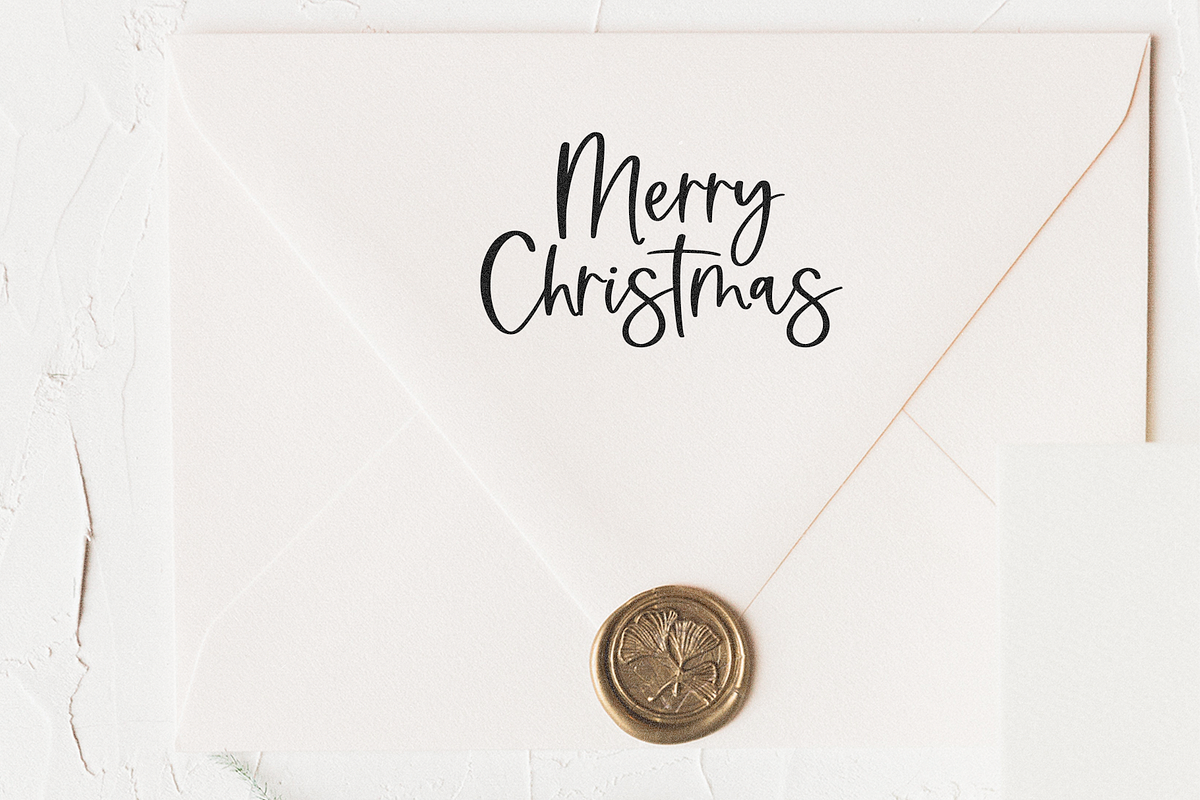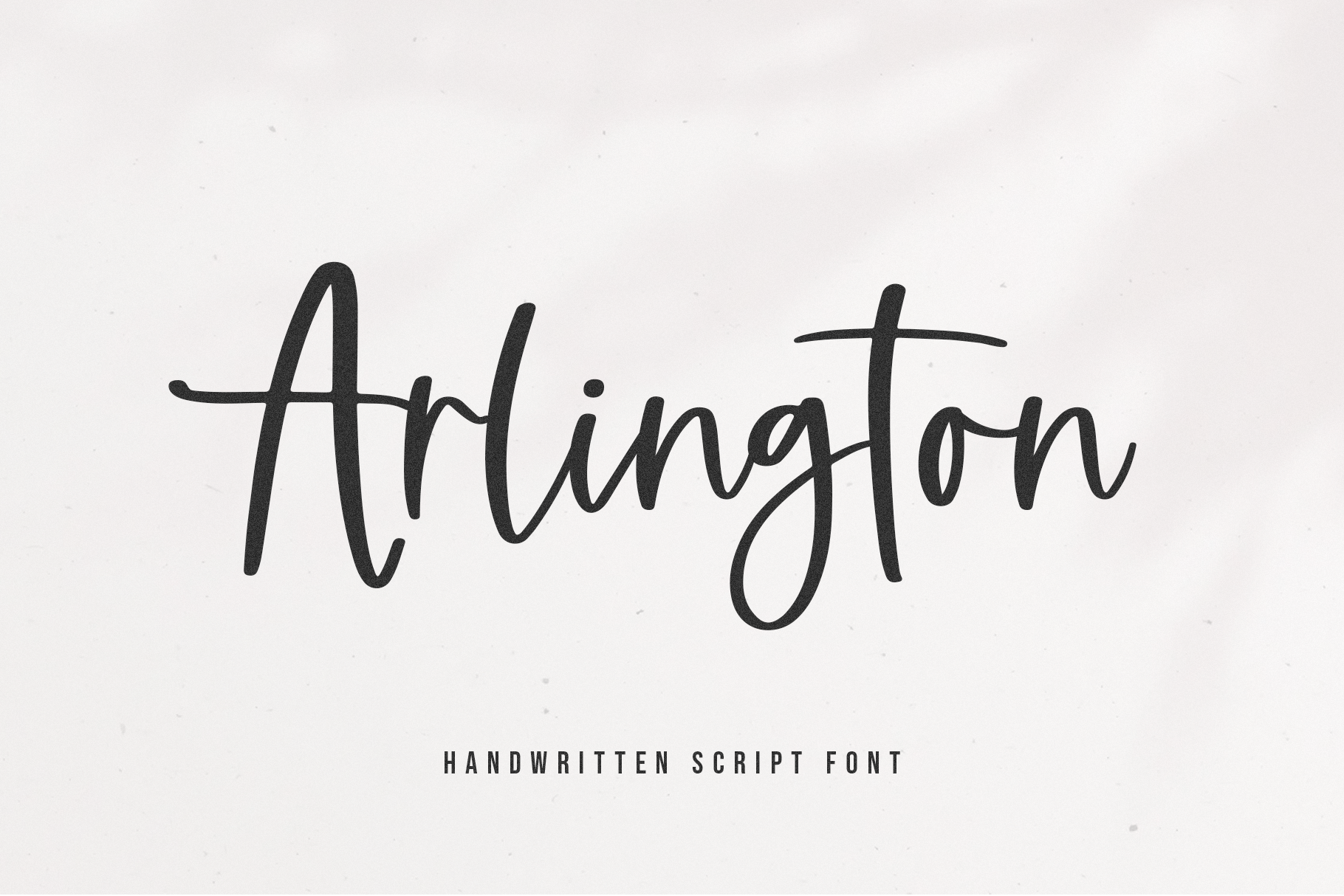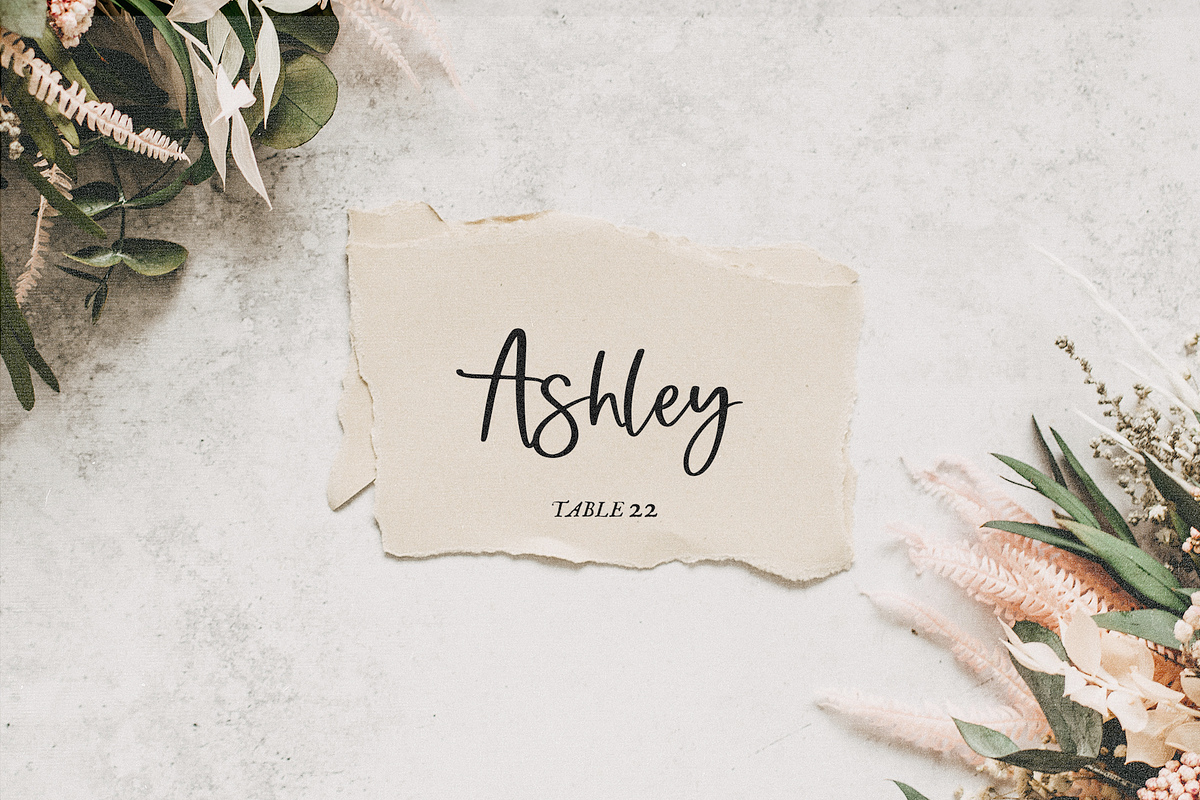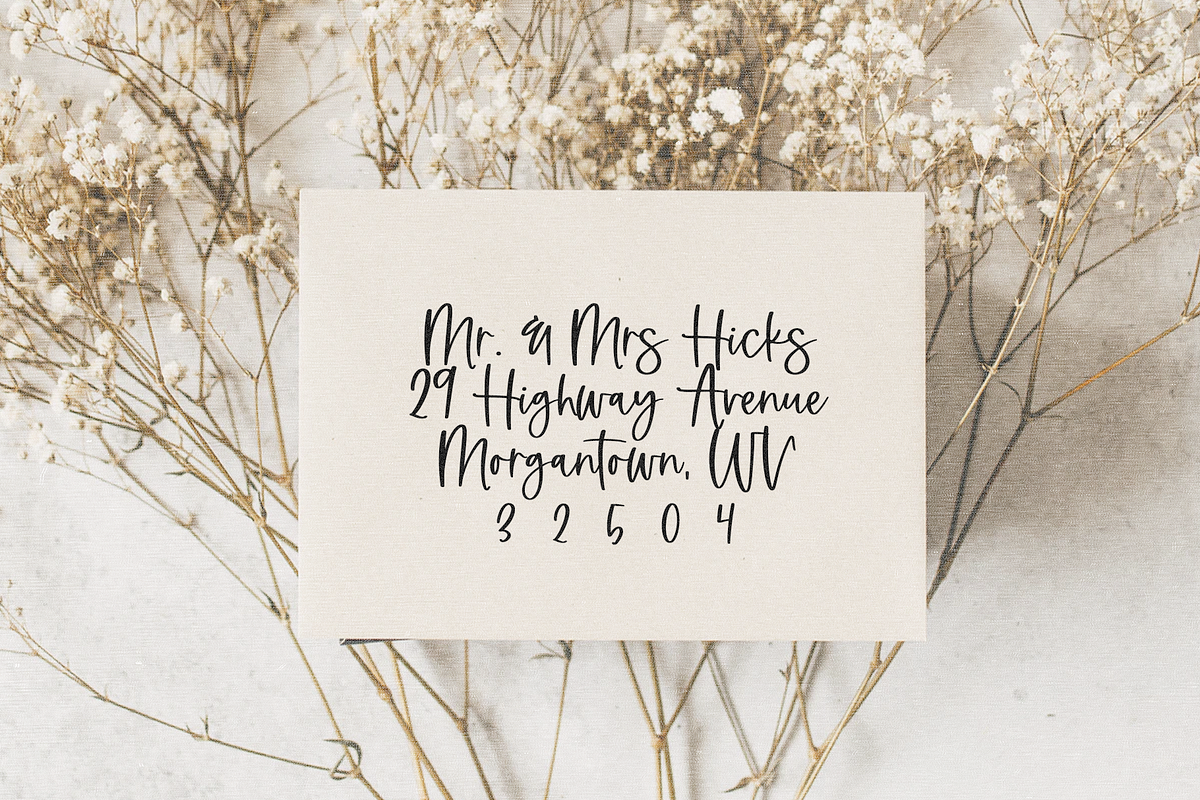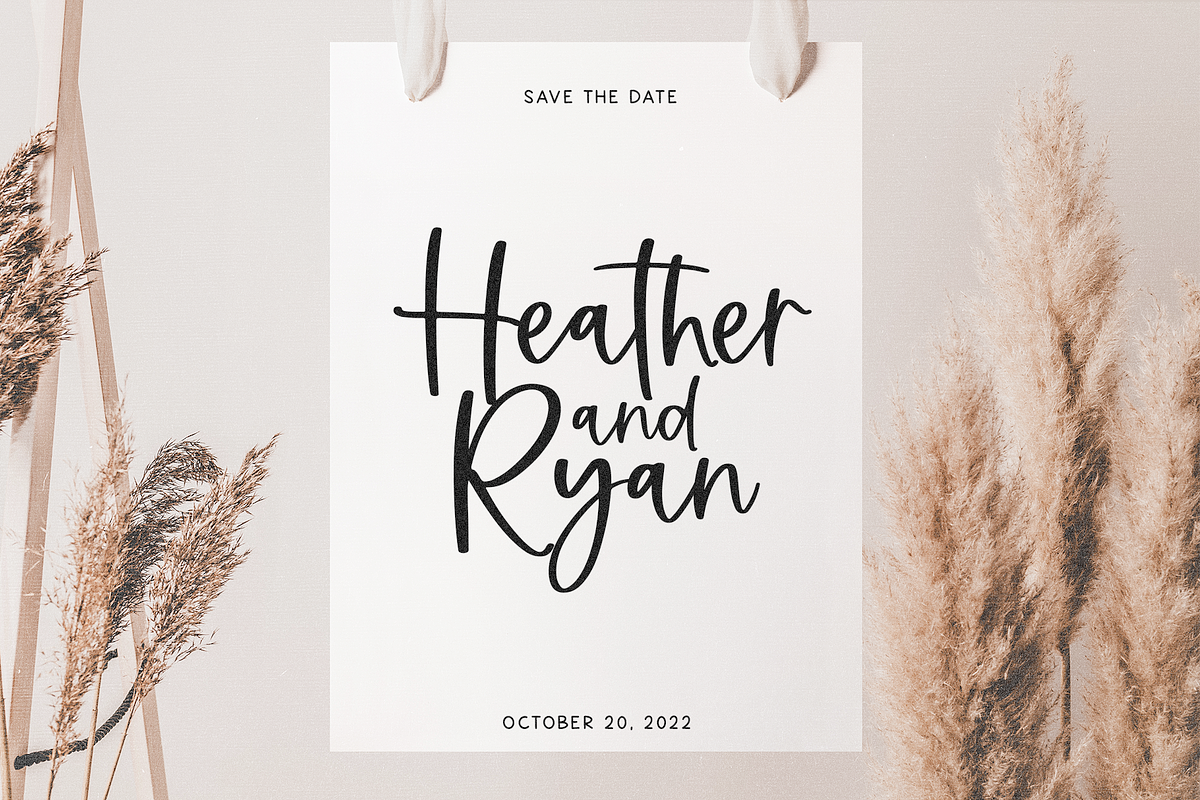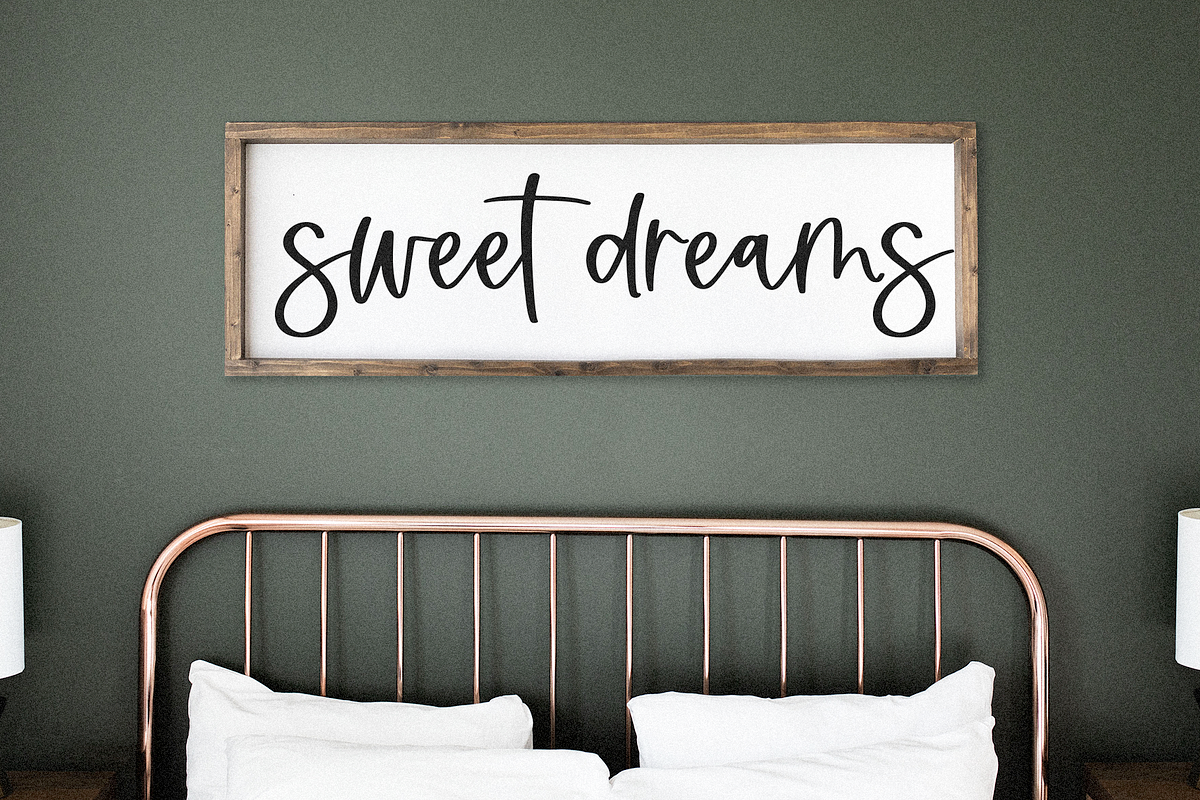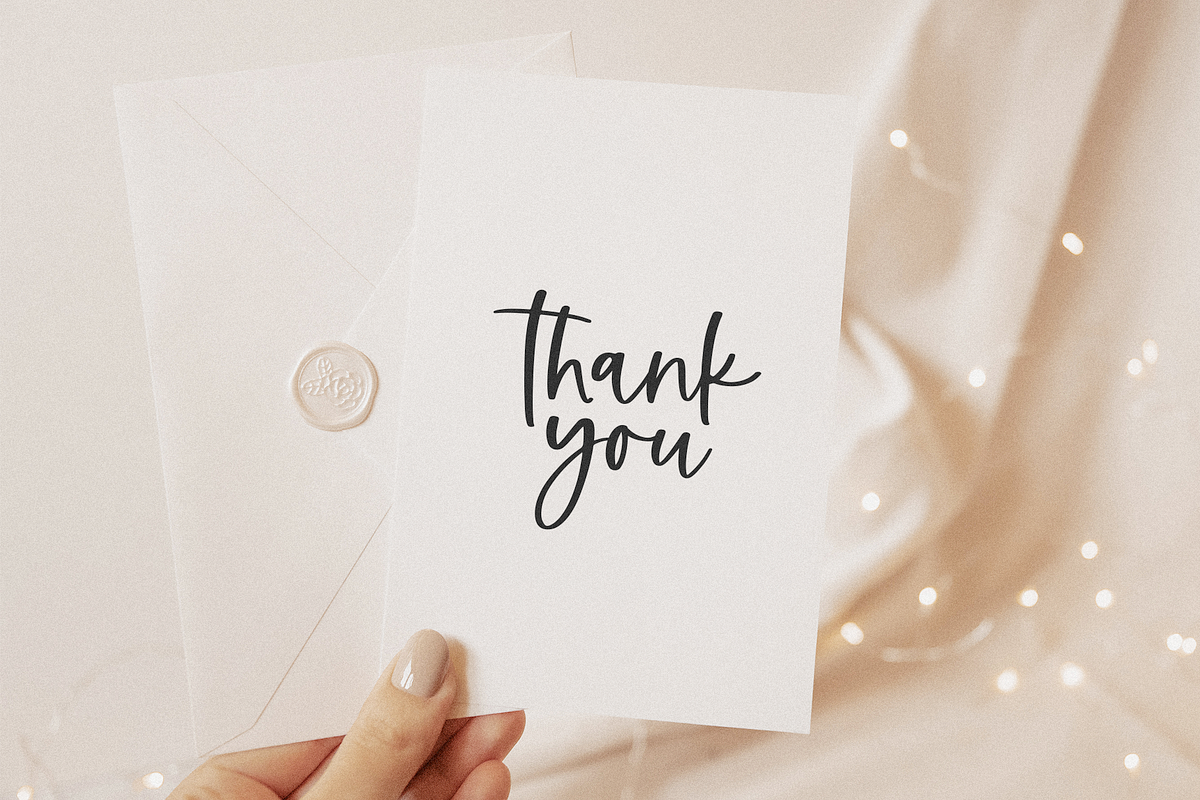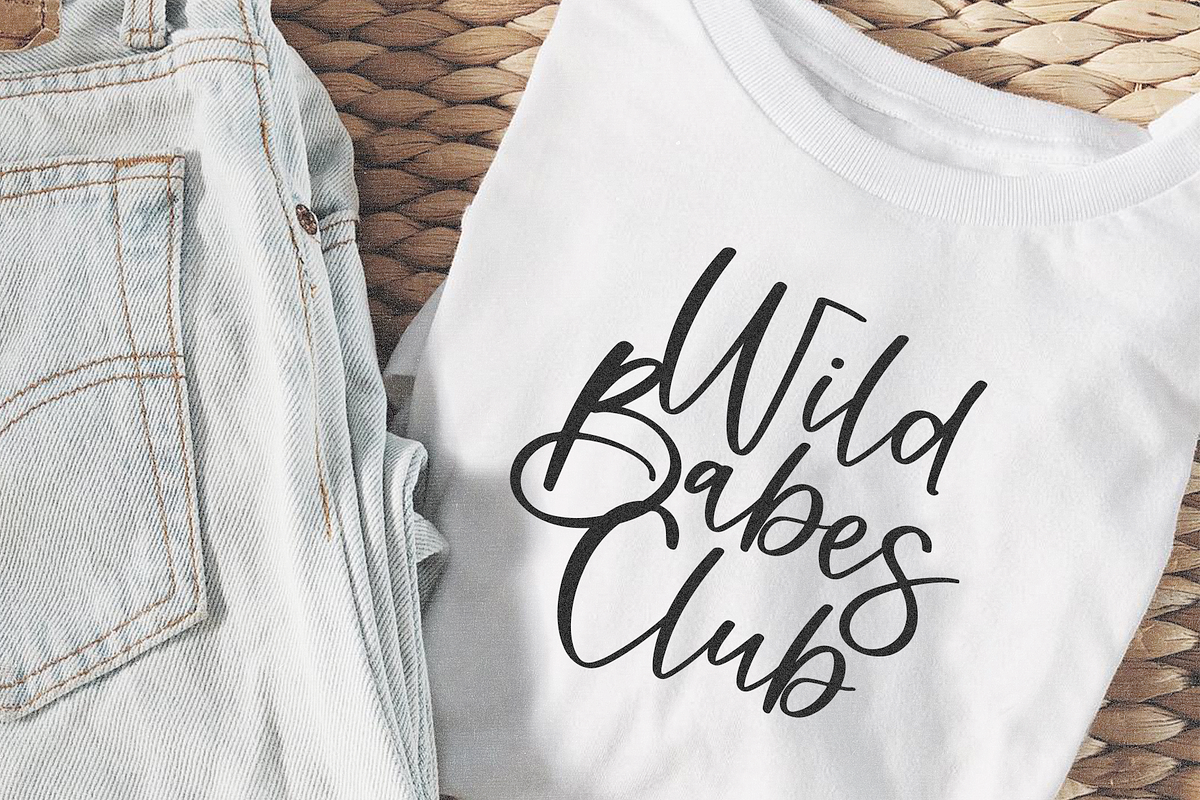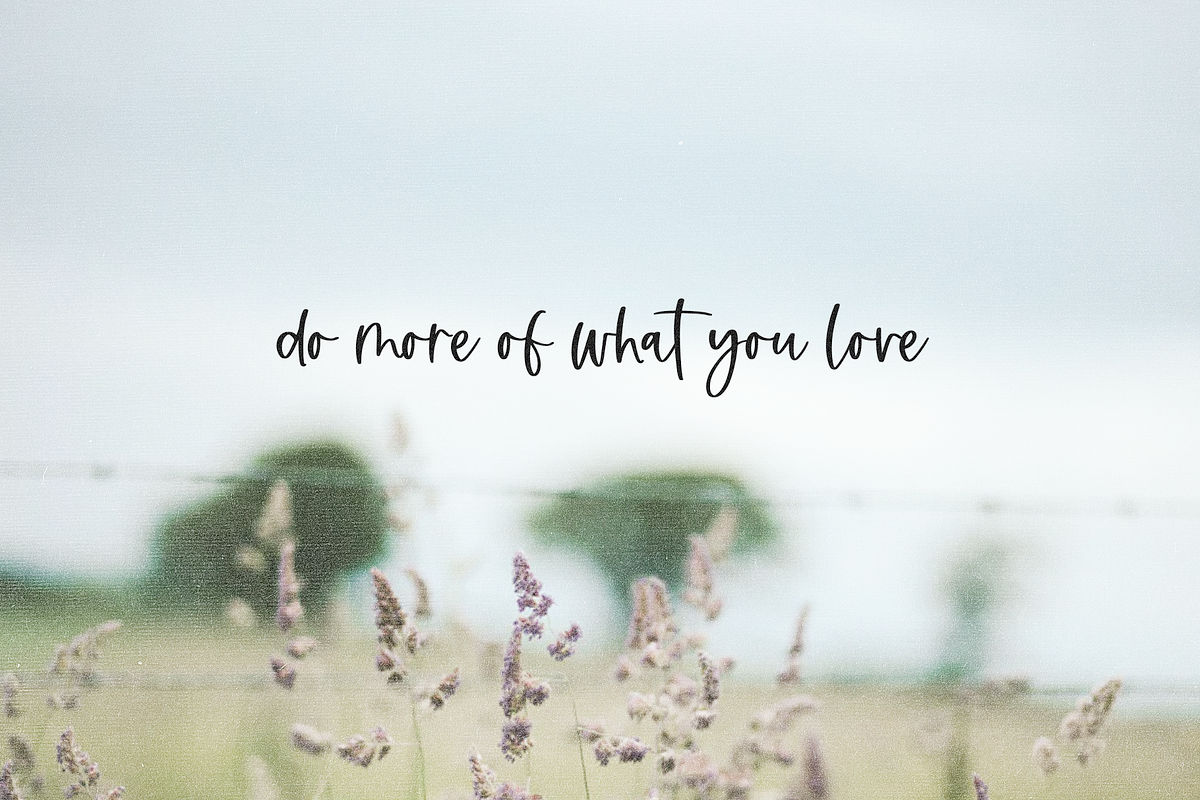
Arlington | Modern Script Font
Arlington is handwritten script font in a modern calligraphy style!
If you like Moonstone - but hate texture, this font is super close and super smooth!
This font is perfect for farmhouse designs, wedding decor, invitations, cricut projects, svg files, shirts, prints, logos and more!